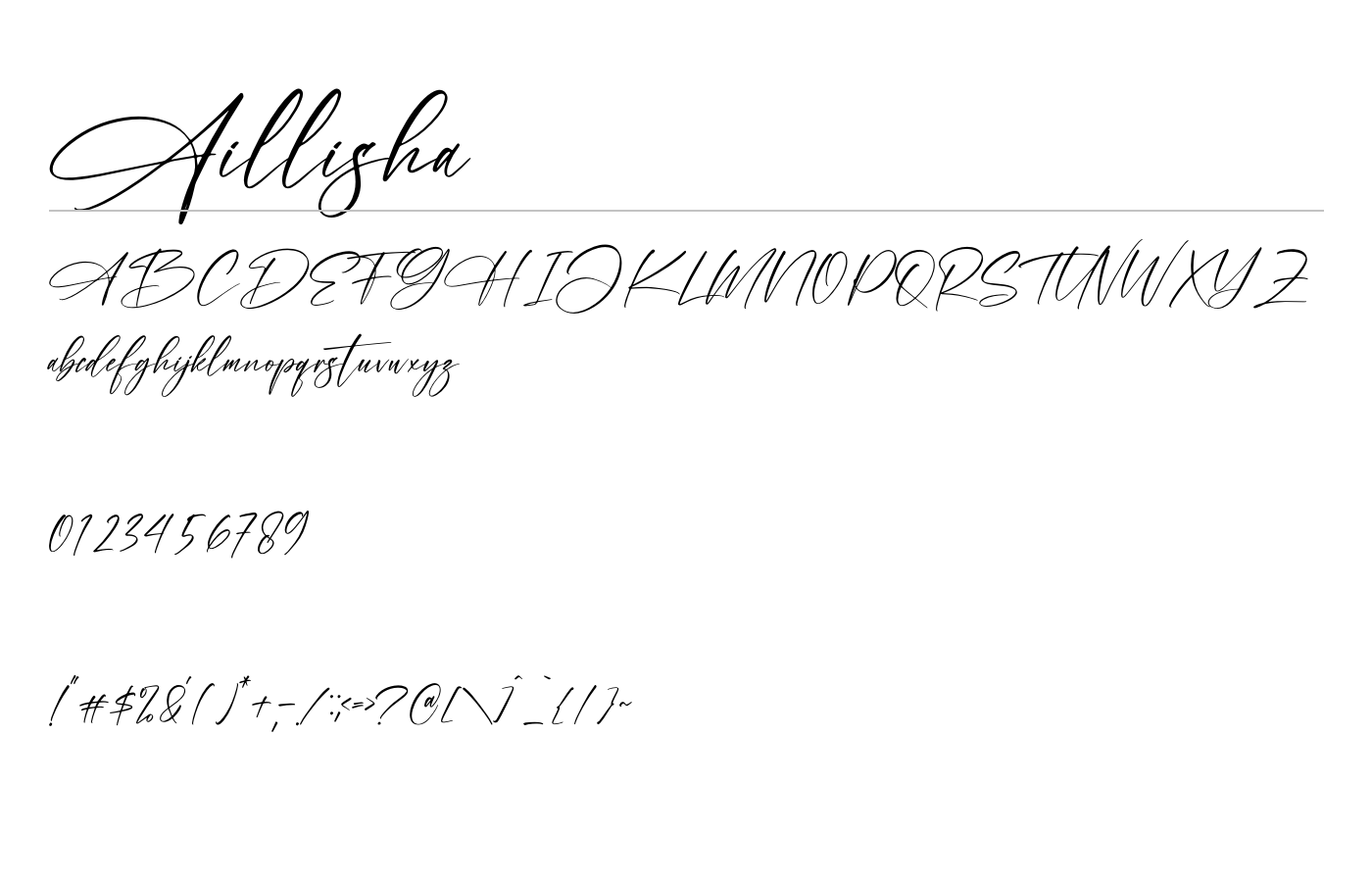
Aillisha is a delicate, elegant script font characterized by its light weight and fluid, hand-drawn style. With its high contrast thin strokes and graceful, flowing letterforms, it conveys a sense of sophistication and personal touch, making it ideal for invitations, branding, and feminine design projects. This font works best in decorative contexts where a refined, stylish appearance is desired, adding charm and elegance to headlines and logos.
Aillisha Font